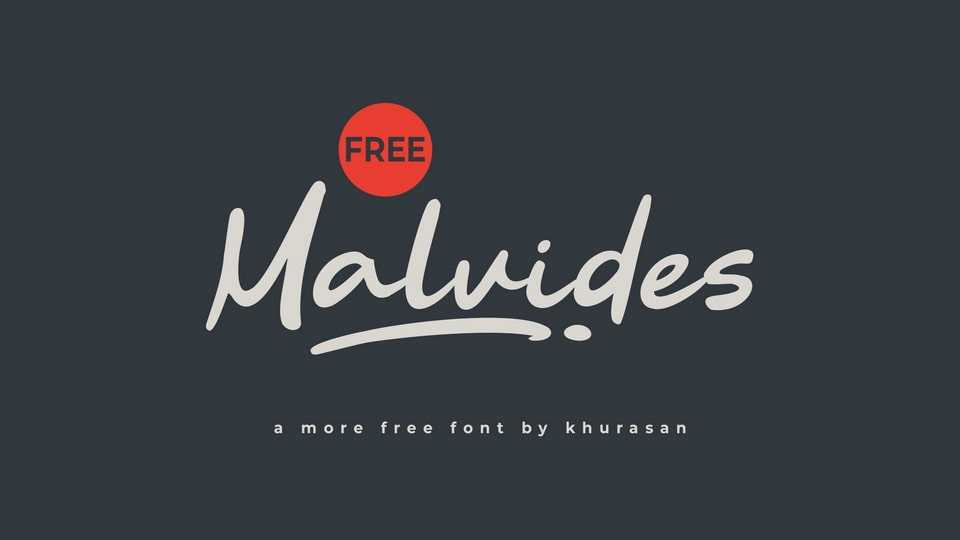
Download Malvides font, a smooth and elegant script typeface inspired by tropical warmth and carefree beauty. Its flowing strokes and delicate curves create a relaxed and inviting mood.